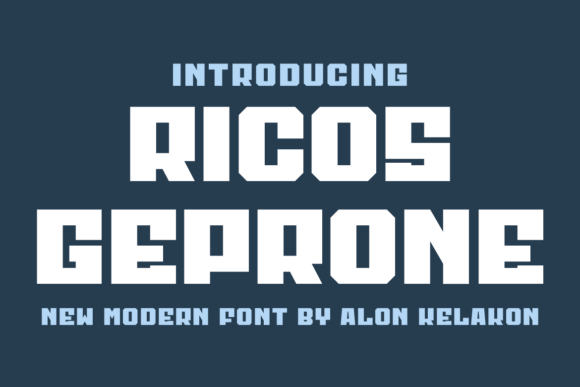
Unleash the power of Ricos Geprone, the extraordinary sans serif font that breathes life into your designs. Its unique and modern strokes effortlessly capture attention, making it the perfect choice for those who dare to stand out. With its versatile nature, Ricos Geprone seamlessly adapts to a symphony of creative projects, from captivating cover letters that leave a lasting impression to alluring logos that command attention.
Step into a world of elegance and sophistication with Ricos Geprone, where each letter dances with grace, exuding a charm that captivates and enchants. Elevate your designs to new heights, captivating your audience with the font's undeniable magnetism. Experience the thrill of crafting designs that resonate with your audience, evoking emotions and leaving an unforgettable mark.
Ricos Geprone's versatility knows no bounds, effortlessly transforming your creative visions into reality. Whether you're crafting eye-catching posters that demand attention or designing movie titles that ignite curiosity, this font is your trusted ally, bringing your creative dreams to life. Unleash your inner artist and explore the limitless possibilities that await, turning ordinary designs into extraordinary masterpieces.